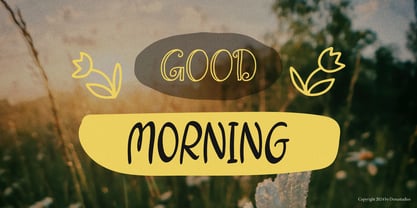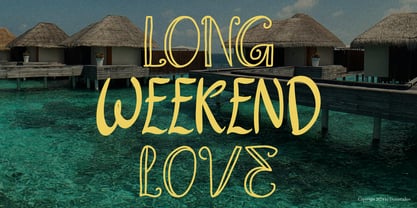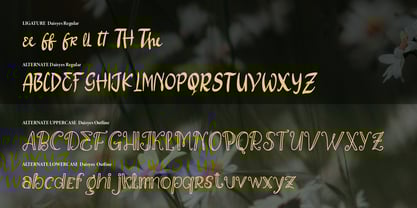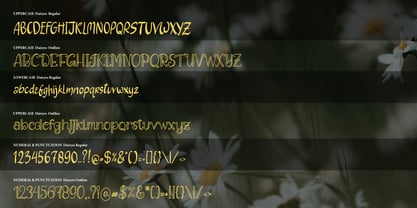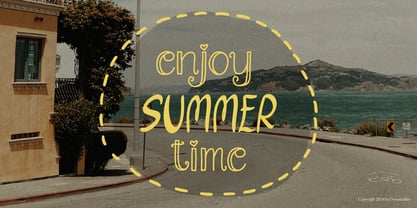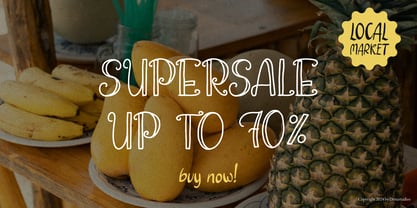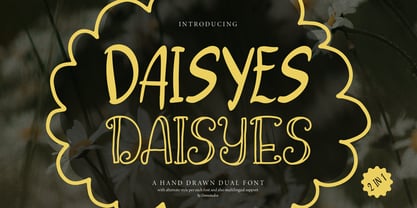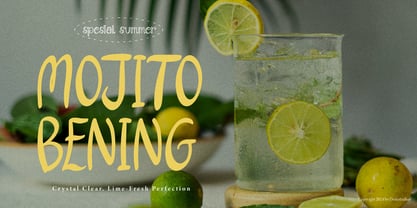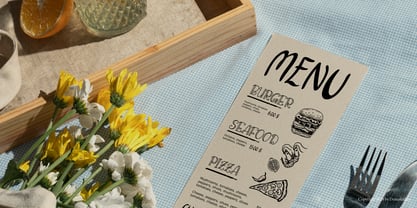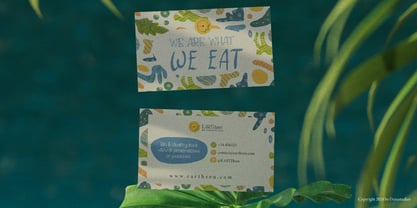
Daisyes Outline
by Denustudio
The Daisyes Outline Font Family was designed by Dede Nugraha and published by Denustudio. Daisyes Outline contains 1 styles.
Daisyes | Hand Drawn Dual Font, from Denustudios, suitable for any projects such as: logos, branding projects, homeware designs, product packaging, mugs, quotes, posters, shopping bags, t-shirts, book covers, name card, invitation cards, greeting cards, label, photography, watermark, special events, and all your other lovely projects that need a Hand Drawn Dual Font taste.
Designers: Dede Nugraha
Publisher: Denustudio
Foundry: Denustudio
Design Owner: Denustudio